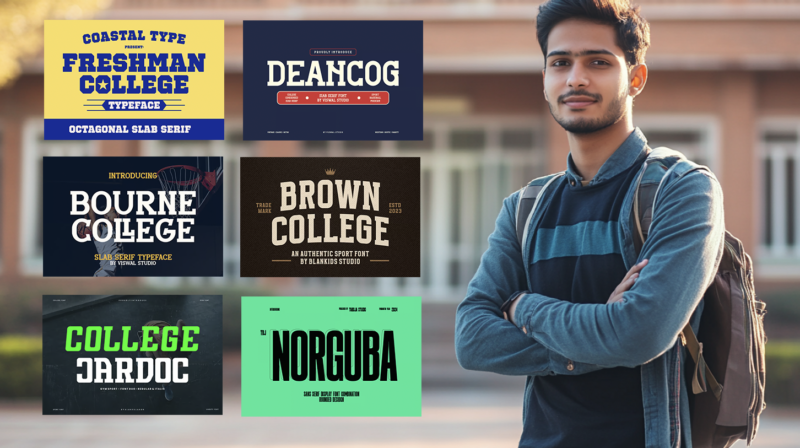
Whether you’re creating merchandise for your alma mater, designing a sports team logo, or just looking to capture that prestigious academic feel, the right collegiate font can make all the difference.
Collegiate fonts are characterized by their bold, traditional letterforms often featuring distinctive serifs and sharp angles. These fonts evoke a sense of heritage, achievement, and institutional pride that’s been part of university branding for generations.
So put on your varsity jacket, and let’s dive into the world of collegiate typography!
The Most Spirited Collegiate Fonts of 2026
Let’s kick things off with my top picks for collegiate fonts that really capture that school spirit vibe. These fonts have that perfect balance of tradition and versatility that makes them ideal for a wide range of collegiate-inspired designs. And if you need a younger feel (elementary, jr high, or high school), try our list of school fonts instead.
Freshman College
Freshman College is a serif font that embodies the spirit of academic beginnings. Its clean lines and subtle serifs give it a scholarly appearance, while maintaining a fresh and modern feel. This font is perfect for college-related designs and projects that require a blend of tradition and contemporary style.
College Block 2.0
College Block 2.0 is a bold serif font that commands attention with its thick strokes and strong presence. This font includes Cyrillic characters, making it versatile for international designs. Its robust appearance makes it ideal for headlines, logos, and designs that need to make a powerful impact in academic or sports-related contexts.
College Font Family
The College Font Family is a sans-serif collection that captures the essence of varsity and academic life. With its clean lines and modern feel, this font family is versatile enough for both formal and casual college-related designs. It’s particularly suitable for projects that need to convey that classic varsity font vibe.
Bleno College Font
Bleno College Font is a decorative typeface that combines elements of space and sports aesthetics. Its unique design makes it stand out in college-themed projects, especially those related to athletics or science departments. This font is perfect for creating eye-catching headlines or logos with a futuristic collegiate twist.
Compound Einthes – College & Fontduo
Compound Einthes is a serif font duo that brilliantly merges college and sports themes. This versatile pair offers designers the flexibility to create cohesive designs with contrasting elements. The sporty font is ideal for athletic department materials, college sports merchandise, or any project that requires a balance of academic sophistication and sporty energy.
Bullsy College 3D Font
Bullsy College 3D Font is a bold serif typeface that adds depth and dimension to your designs. Its 3D effect creates a strong visual impact, making it perfect for large-scale displays, posters, or digital media where you want text to pop. This font is especially suited for college sports teams or events that need a powerful, attention-grabbing typography.
Behover College – Logo & Display Font
Behover College is a sans-serif display font designed specifically for logos and prominent text. Its clean, modern lines make it highly legible while maintaining a distinctive character. This font is ideal for creating memorable college branding, signage, or any design where you want to combine academic prestige with contemporary style.
Sports College – Font Duo
Sports College is a dynamic font duo combining script and handwritten styles. This pairing offers a perfect blend of energy and elegance, making it ideal for college sports branding, team merchandise, or event promotions. The combination allows designers to create visually interesting layouts that capture both the spirit of athletics and the prestige of higher education.
Sporte College – A Classic Slab Font
Sporte College is a classic slab serif font that exudes strength and tradition. Its bold, blocky serifs give it a sturdy appearance, perfect for college sports teams or athletic department branding. This font conveys a sense of established prestige while maintaining a sporty edge, making it versatile for various collegiate design applications.
Bullsy College – A Classic Sport Font
Bullsy College is a serif font that captures the essence of classic sports typography with an old-school charm. Its bold strokes and distinctive serifs make it perfect for vintage-inspired college sports designs. This font is ideal for creating nostalgic merchandise, retro-style posters, or any project that aims to evoke a sense of collegiate athletic heritage.
So next time you’re creating anything from team jerseys to graduation announcements, remember that collegiate fonts offer more than just letters—they provide a visual connection to academic heritage and community belonging that few other typographic styles can match.